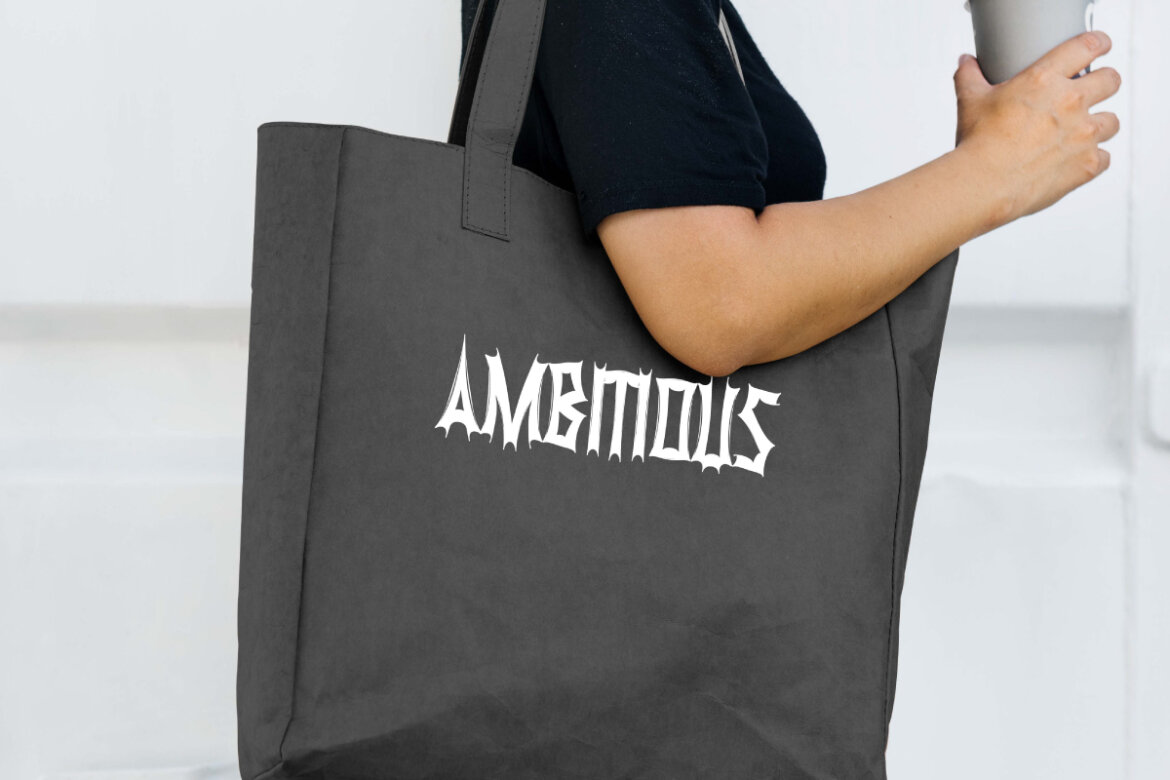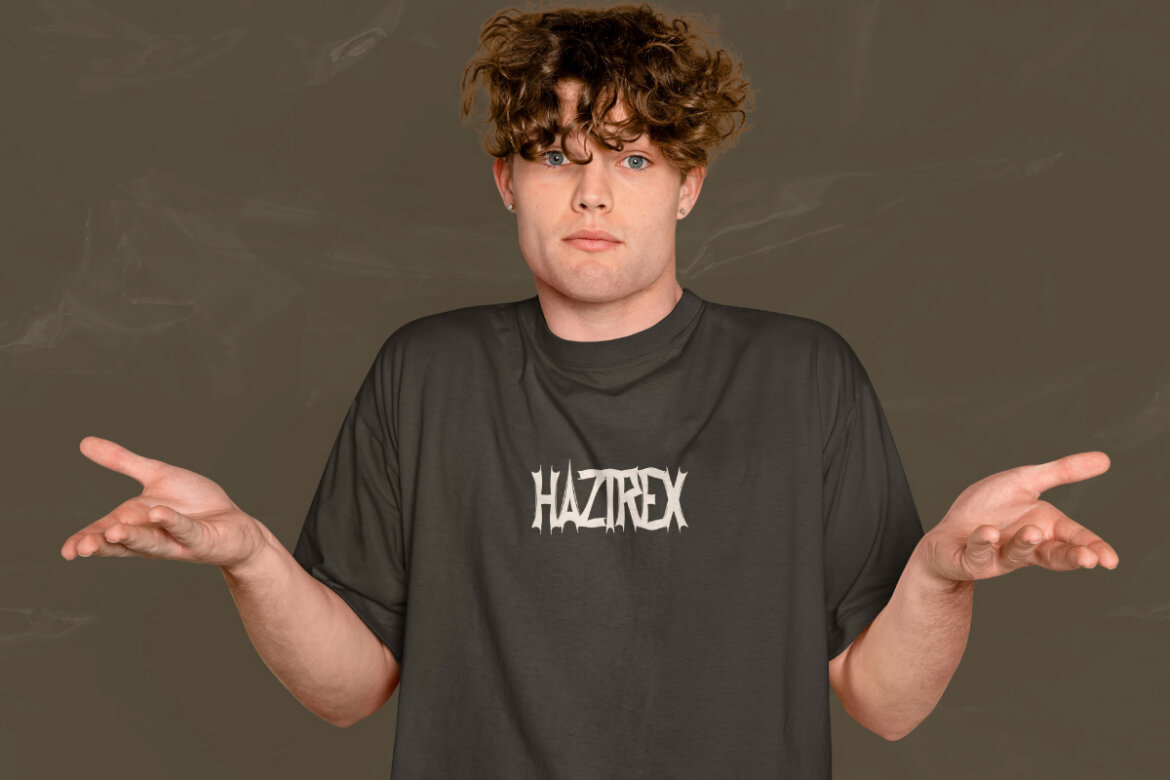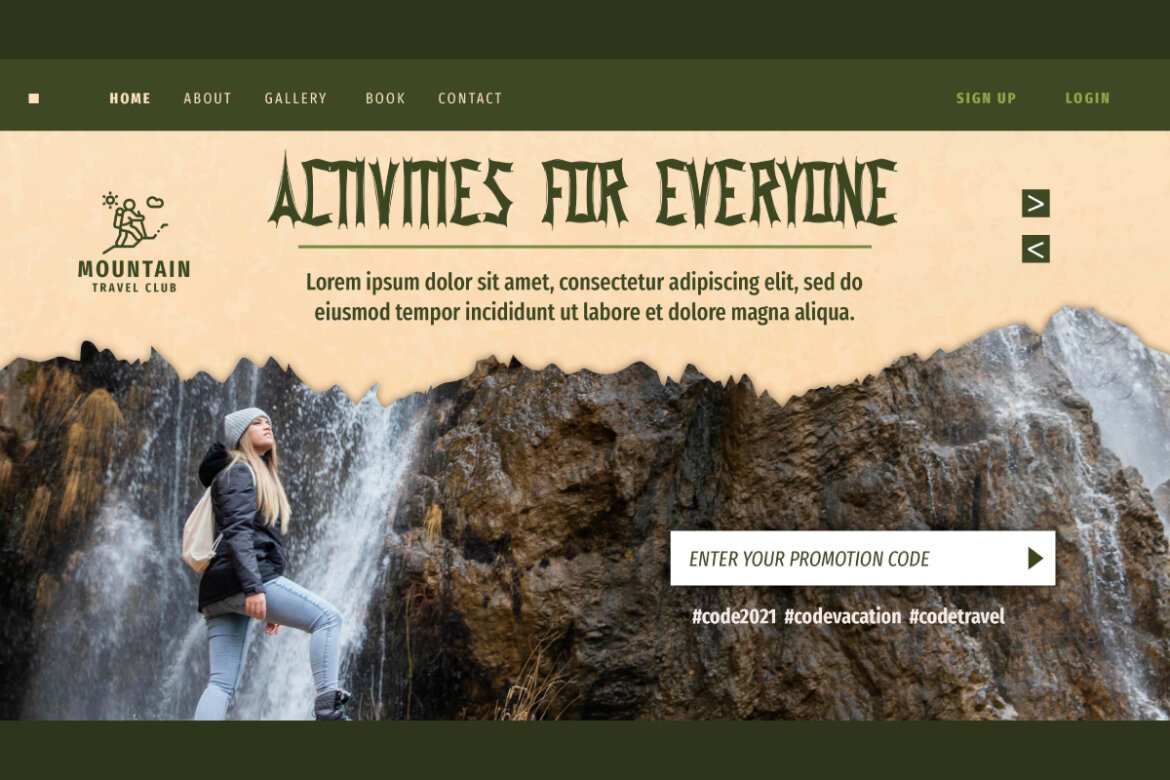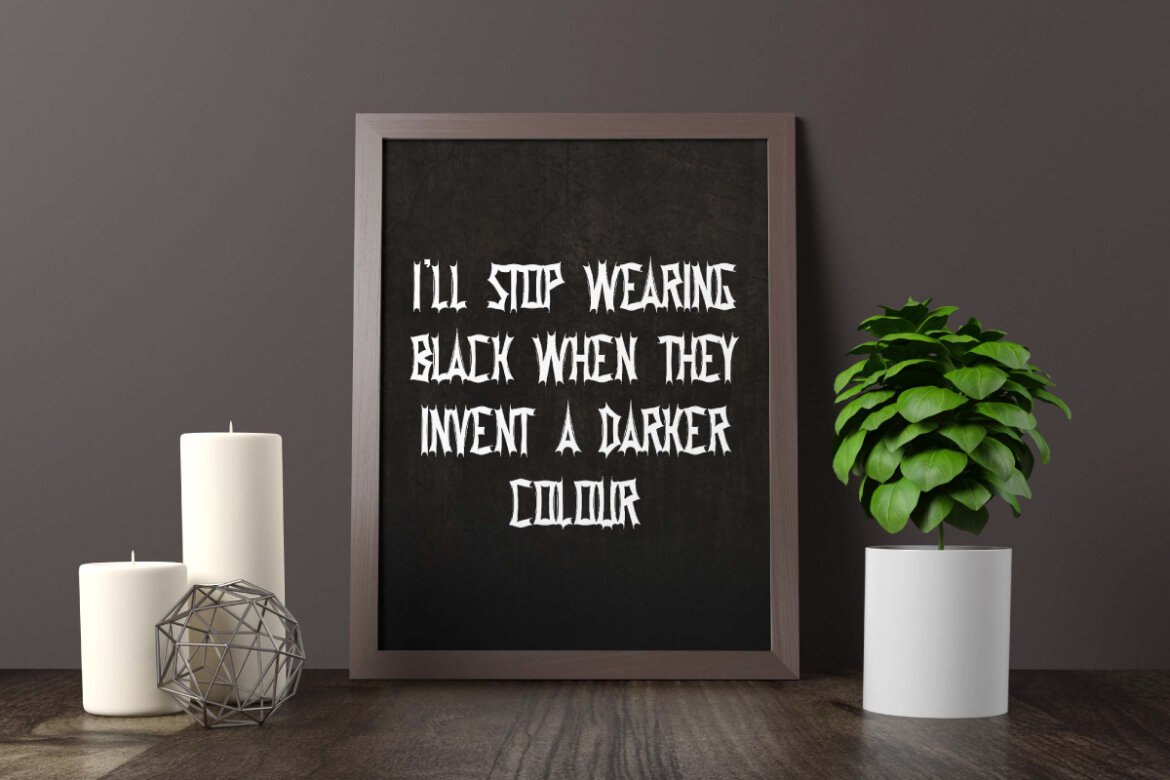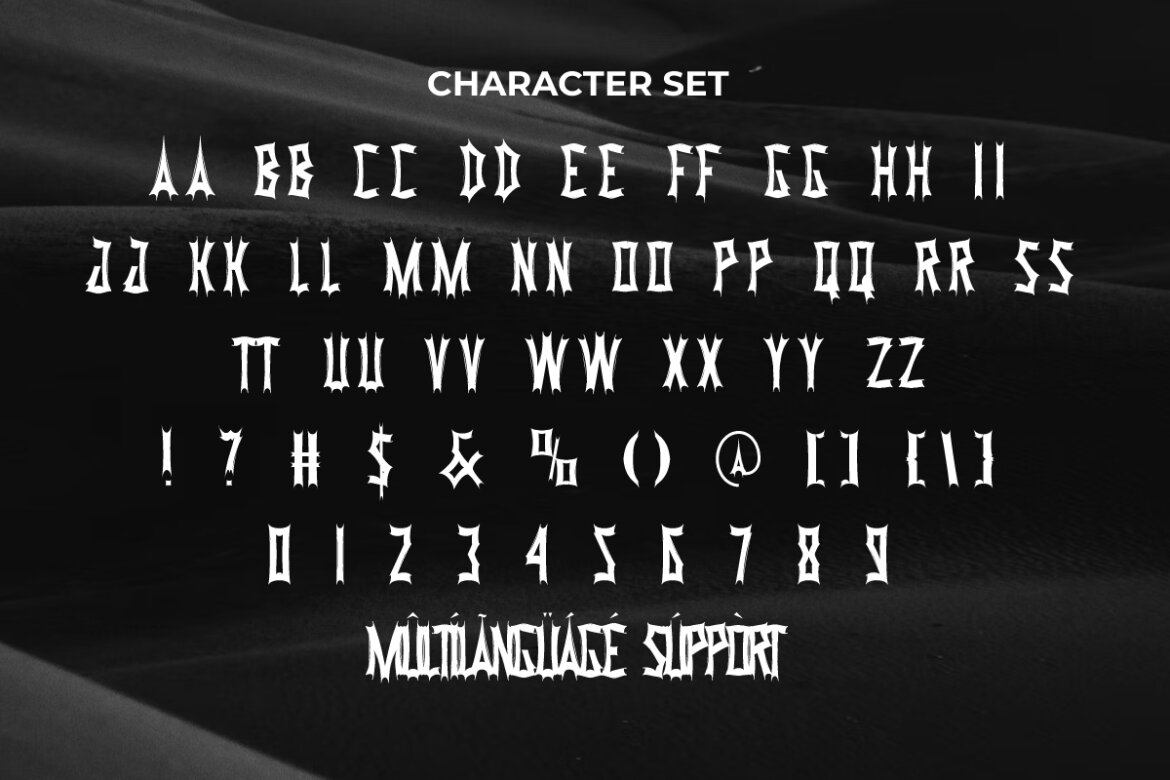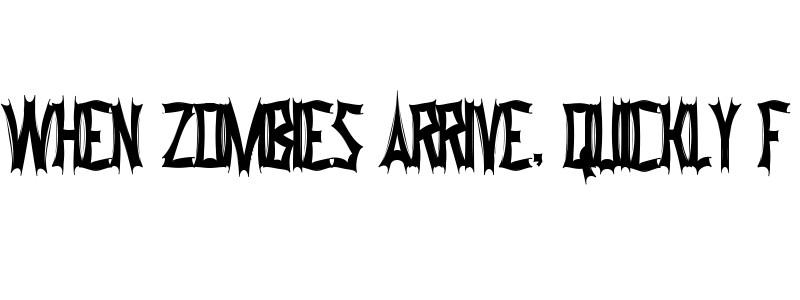
Haztrex Font
Haztrex
Haztrex Font is a rough display font with a black rock metal feel. Perfect for any design that requires a bold typeface, such as billboard, brand logo, business cards, cover album, embroidery designs, headers, heading, labels, posters, print on fabrics, spooky quotes, sticker, websites, and so on.
Haztrex Font includes a complete basic set in ALL CAPS for both uppercase and lowercase letters, Numbers, Punctuation and Symbols. This is a fierce display font with sharp edges on each character. The pointy part is what makes it unique and stand out in its own way. The font style itself is oriented towards eerie street wall graffiti, and will be perfect for brand of outdoor sports equipment, clothing, fashion, film, game, graphic design, printing, publishing, rock band, sports, web designer, wrist watches and accessories, etc.